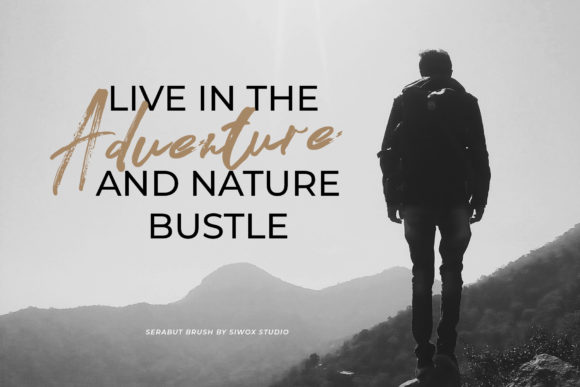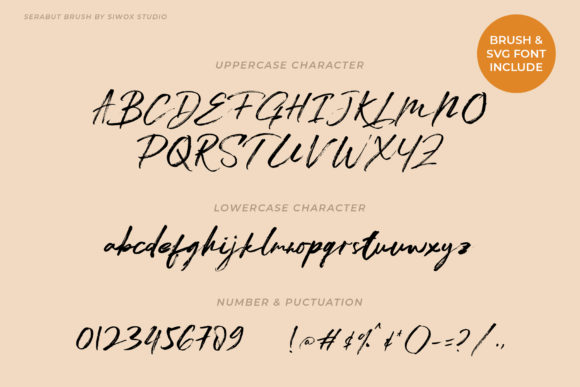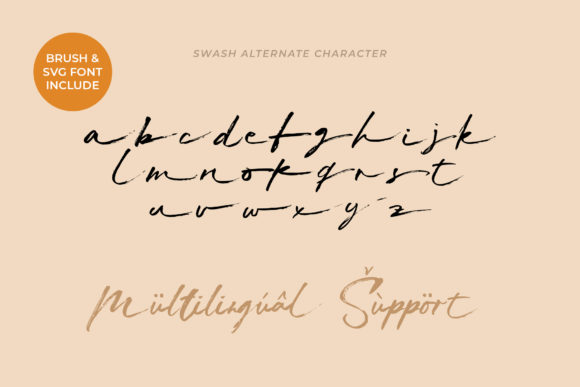
Discover the Magic of Serabut Font
Have you ever stared at a blank canvas, trying to bring your creative project to life, only to be stuck for hours, waiting for the perfect spark? For designers, finding that perfect font can be the difference between a decent design and a truly exceptional one. And that’s exactly where the Serabut Font comes in – a fresh and natural brushed handwritten font that has the power to elevate any creation.
Whether you’re working on a logo, a brochure, or even a simple social media post, the Serabut Font is an invaluable design resource that can add a personal touch to your work. With its unique, handwritten style, it’s the perfect addition to any designer’s library, and the best part? It’s available for free download, complete with a transparent background, making it easy to integrate into any design project.
With its high-quality design and versatility, the Serabut Font is a game-changer for designers looking to take their work to the next level. So why settle for an ordinary font when you can have a truly exceptional one? Download the Serabut Font today and discover a new world of creative possibilities.
Key Features of Serabut Font
- Unique, modern design with a transparent background, perfect for layering and customization
- Designed with high resolution, suitable for print and digital applications
- Supports various languages, making it a versatile design resource
Honest Review: Serabut Font
I recently had the chance to work with the Serabut Font, a popular design resource that’s gained quite a following in the creative community. Let’s dive into my honest review and see if it lives up to the hype.
- High-quality design: The Serabut Font has a sleek, modern look that’s perfect for a wide range of creative projects.
- Transparent background: This feature makes it easy to work with the font, allowing for seamless integration into any design.
- Extensive character set: The font includes a wide range of characters, making it suitable for projects that require a lot of text.
While the Serabut Font is a great resource, there are a few limitations to consider:
- Not ideal for small text: The font can be difficult to read in small sizes, which may limit its use in certain projects.
- Not as versatile as some other fonts: While the Serabut Font is great for modern designs, it may not be the best choice for more traditional or vintage-inspired projects.
Overall, I’m impressed with the Serabut Font and would definitely recommend it to designers looking for a high-quality, modern font. However, it’s essential to consider the limitations before using it in your next creative project.
Tips for Getting the Most Out of Serabut Font
Use the Serabut Font in conjunction with a transparent background to create a high-quality design. Experiment with different font sizes and styles to add visual interest to your project.
The Serabut Font is ideal for creative projects, such as graphic design, digital art, and typography. You can also use it as a design resource for branding and marketing materials.